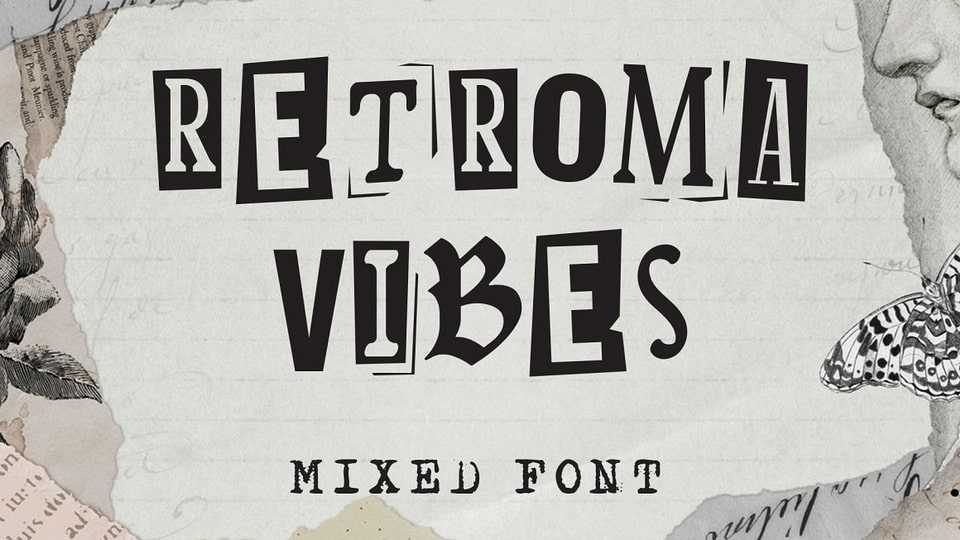
Download Retroma Vibes font, a mixed typeface inspired by retro collage art and clipping of old newspapers. Feel the old school taste with Retroma Vibes font mixed of sans serif, condensed serif, blackletter, handwriting, and old typewriter style, combined into a chaotic collage style.